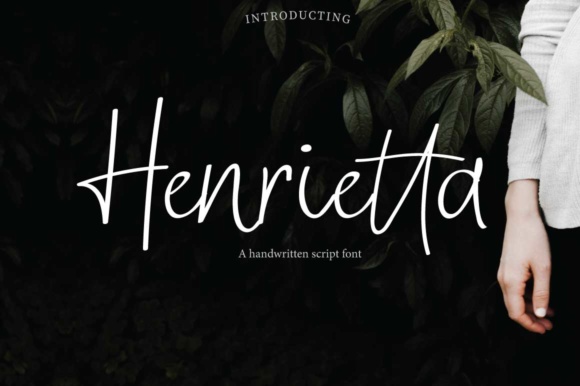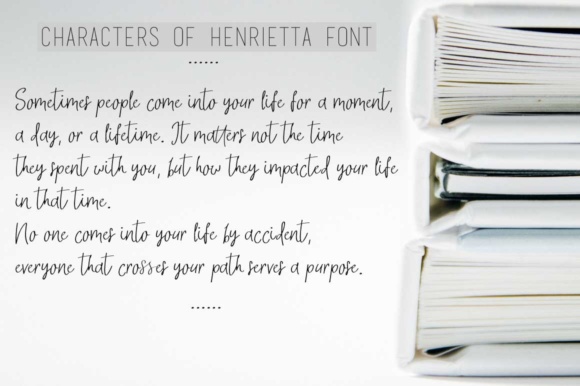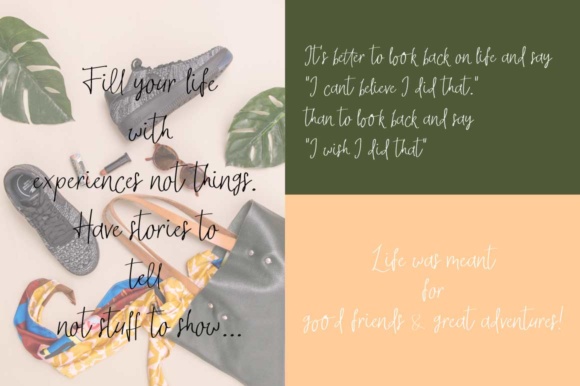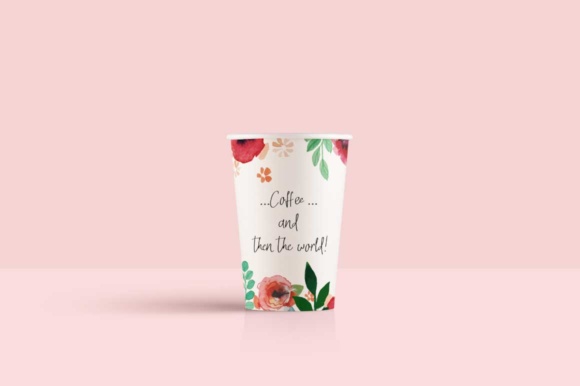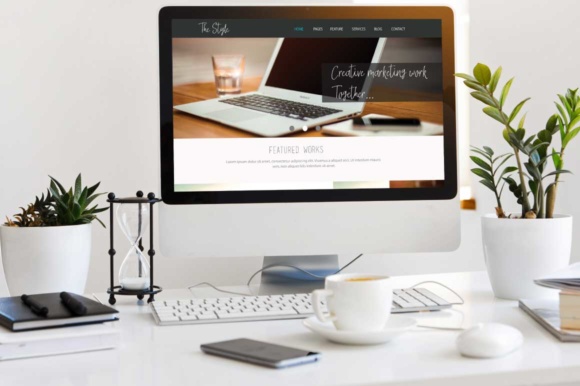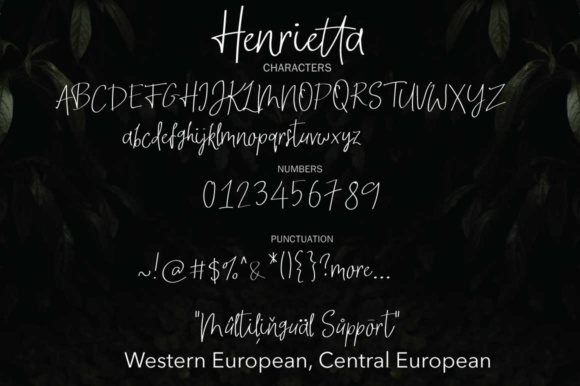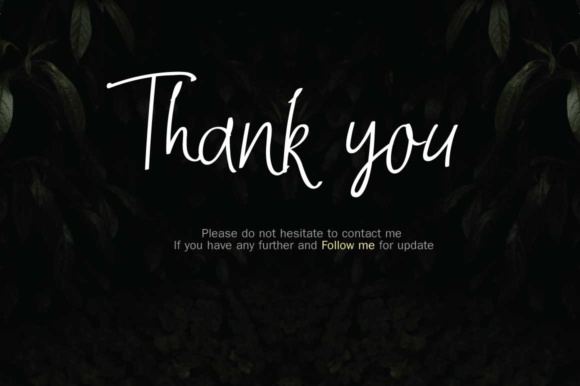
Henrietta Font
About Henrietta Font
Henrietta is a handwritten signature font. It has a chic and luxury look which is perfect for wedding invitations, blogs, social media posts, and messages.